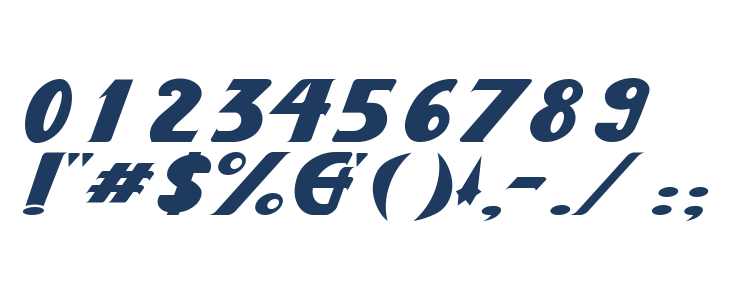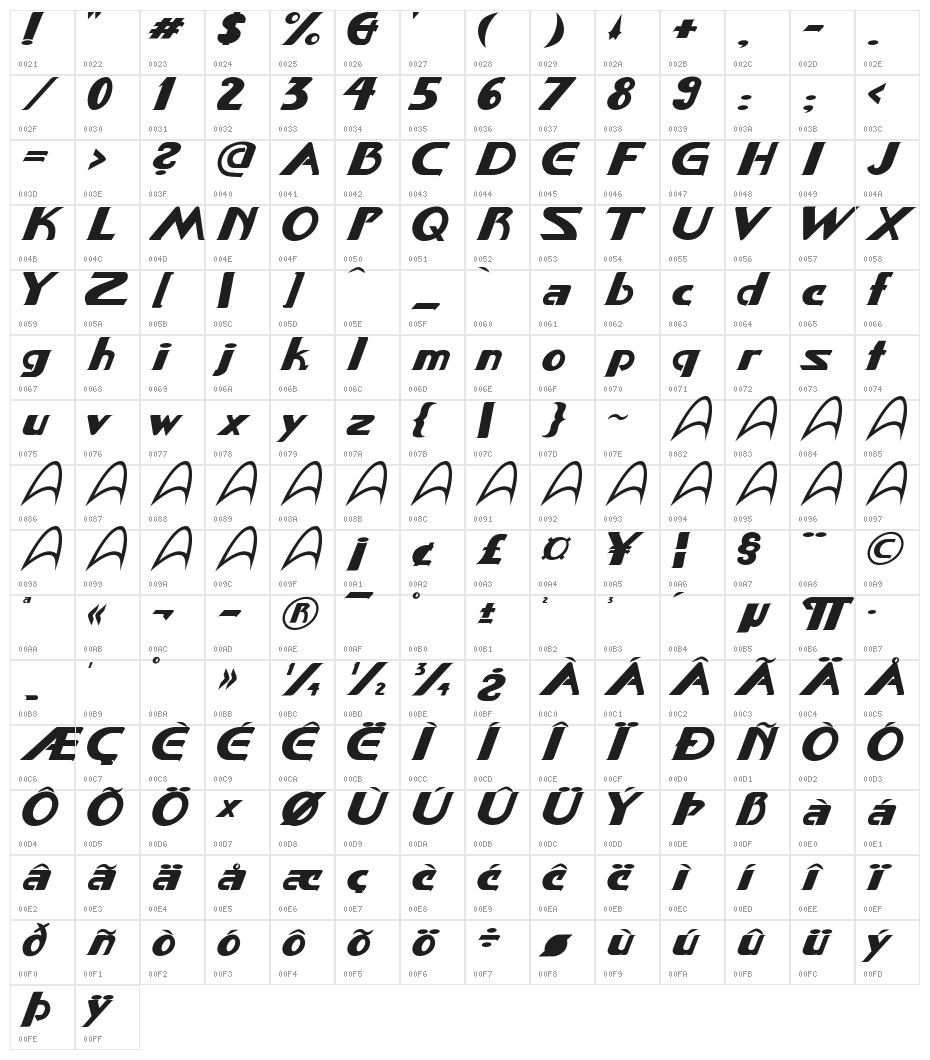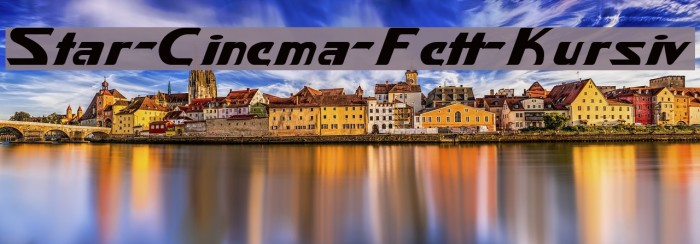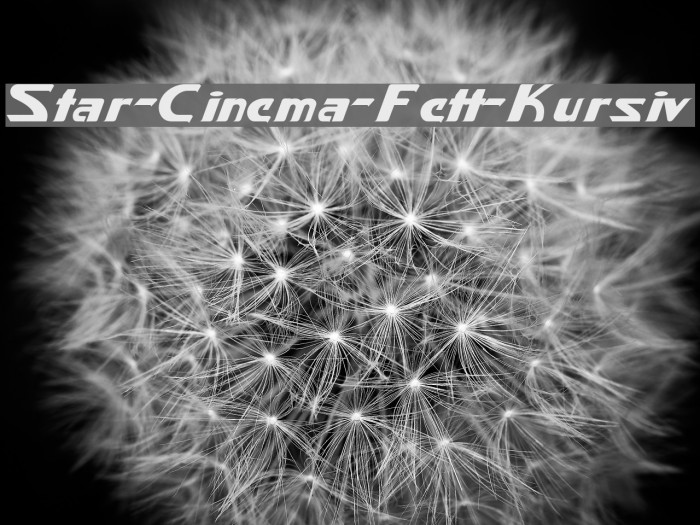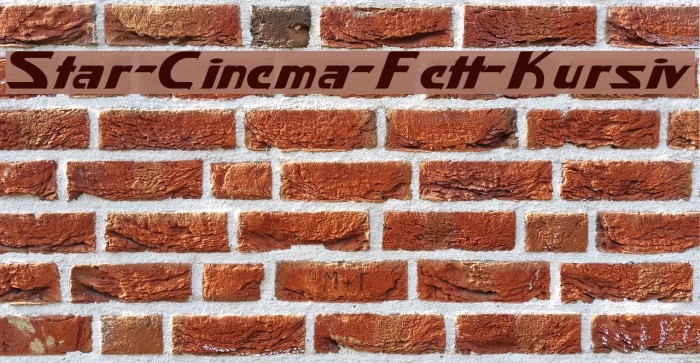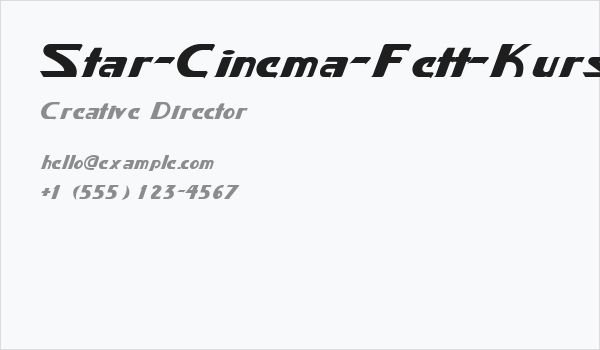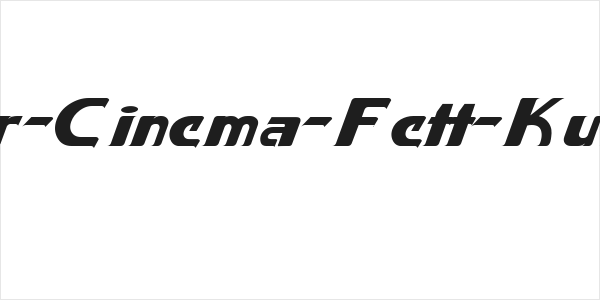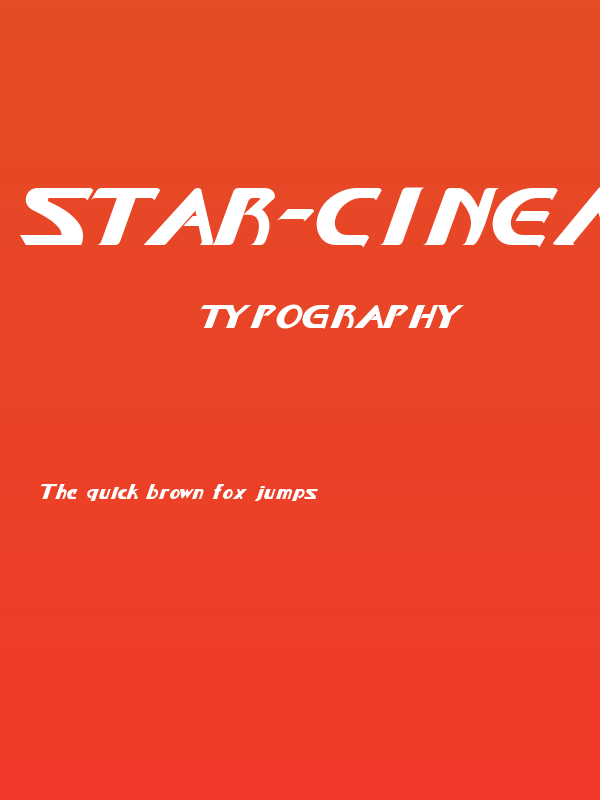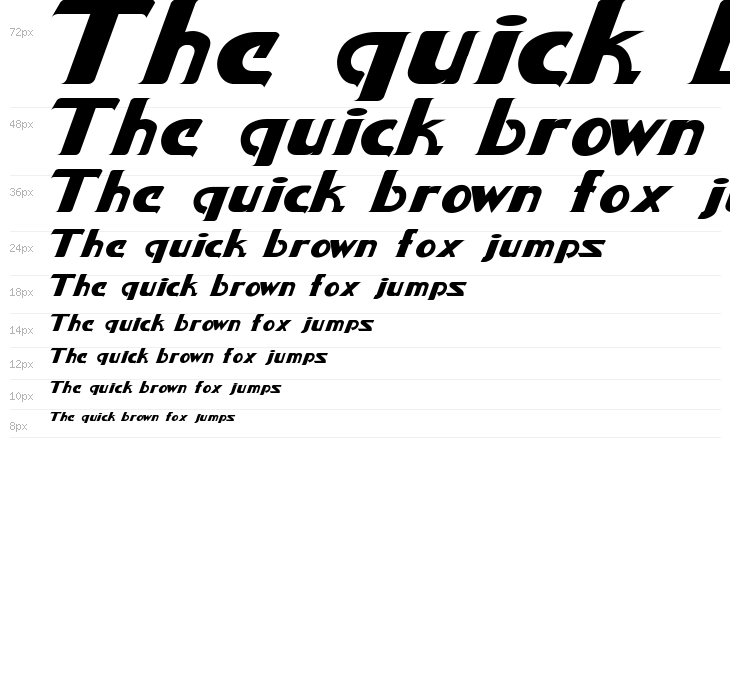
Star-Cinema-Fett-Kursiv Font
Star-Cinema-Fett-Kursiv Description
This font features a bold and dynamic style with a distinct slant, giving it a sense of motion and energy. The characters are thick and robust, with sharp angles and a futuristic aesthetic. The uppercase letters are particularly striking, with unique shapes that stand out. The lowercase letters maintain the same boldness, ensuring consistency throughout the typeface. Numbers and special characters are designed to match the overall style, making it suitable for attention-grabbing designs. The font's strong presence makes it ideal for projects that require a modern and impactful look.
| Proposed Projects | Ideal for movie posters, video game titles, sci-fi book covers, and branding that requires a modern edge. |